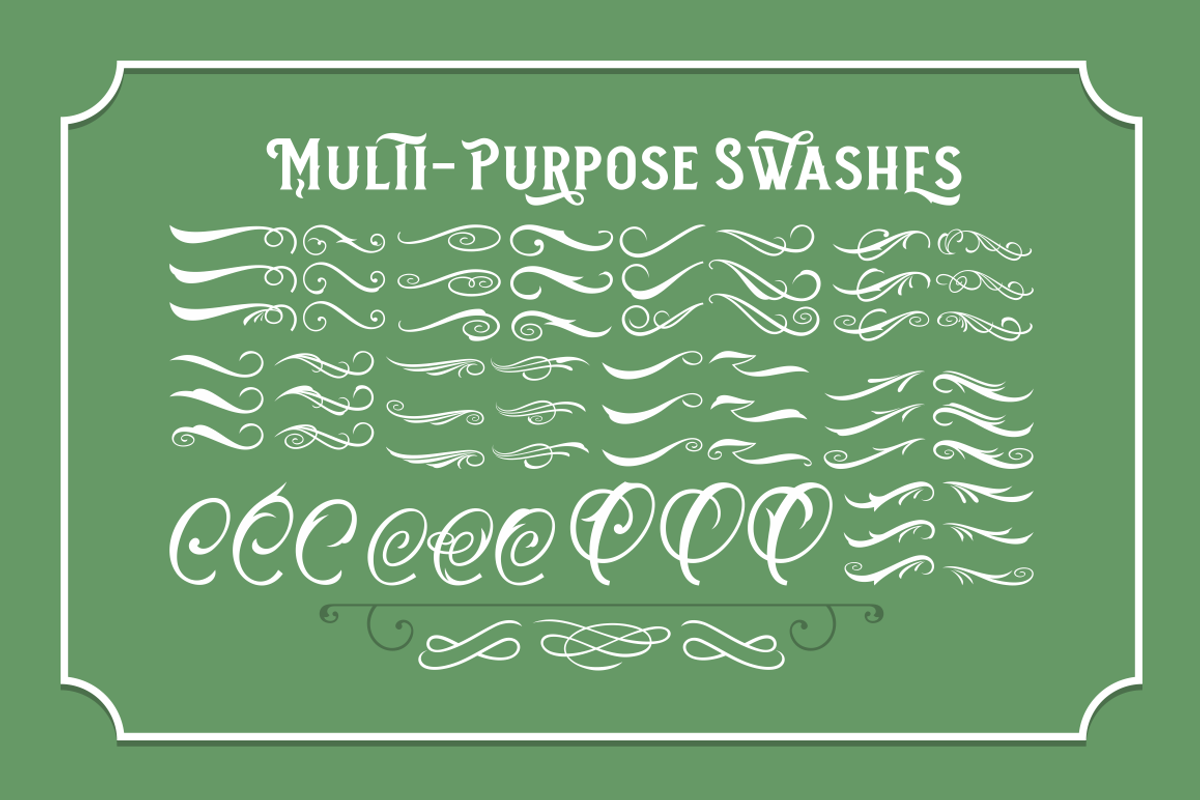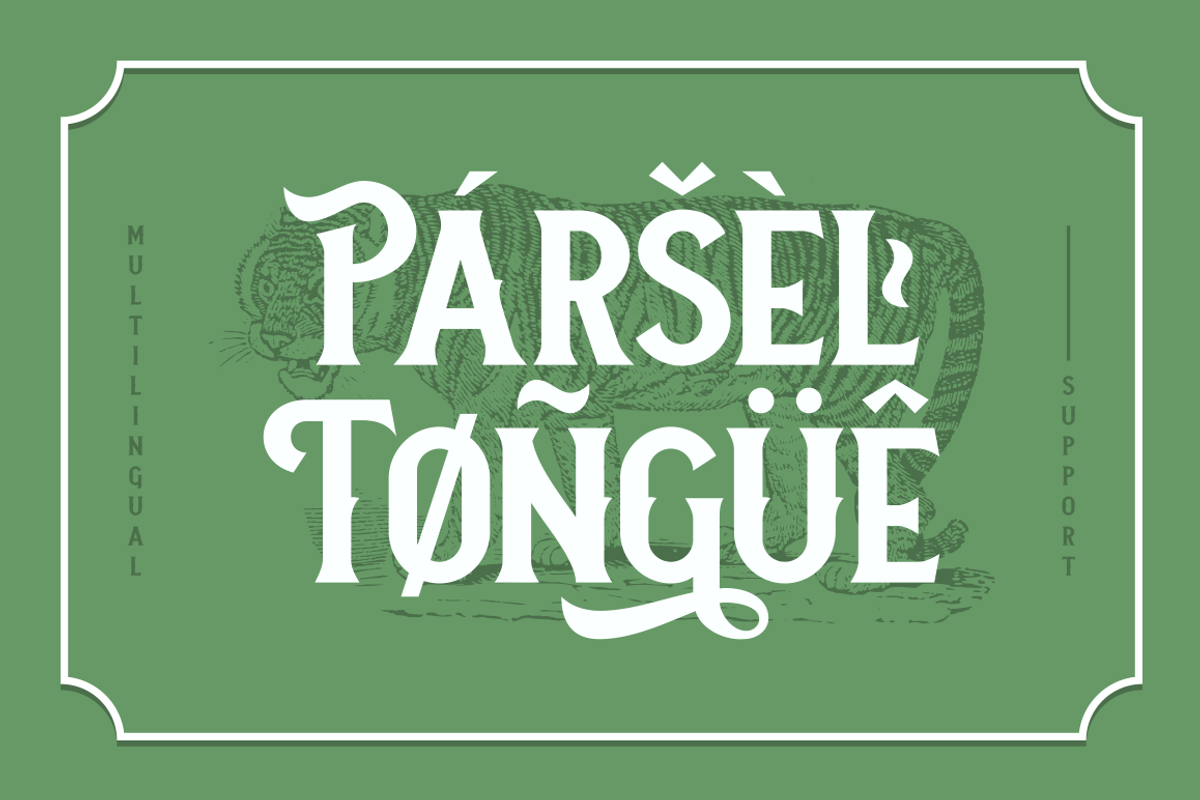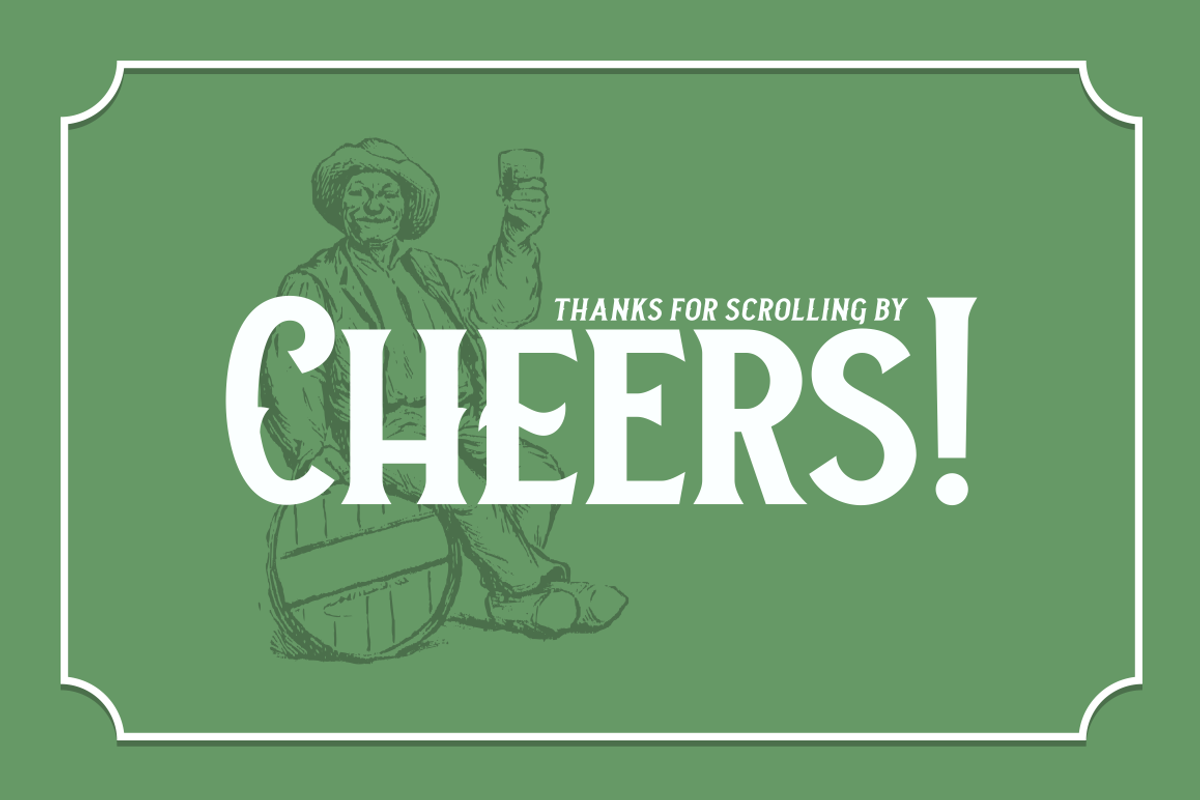
Neue Stanley
Hello, we're back with another old but new font; Neue Stanley, all-caps vintage serif with strong, clean, and sharp figures. Inspired by the classic letters that were used in the old advertisements (posters, labels, etc) Mouse-crafted with high attention to the details, satisfaction guaranteed! Whether you're working on modern or classic themed designs, this font is a must have on your designing arsenal.
- Standard characters, numerals, and punctuations (OpenType Standard encoding),
- Multilingual character supports (Afrikaans, Albanian, Catalan, Croatian, Czech, Danish, Dutch, English, Estonian, Finnish, French, German, Hungarian, Icelandic, Italian, Lithuanian, Maltese, Norwegian, Polish, Portuguese, Slovenian, Spanish, Swedish, Turkish, Zulu),
- OpenType features such as alternate characters, stylistic sets,swashes, ligatures, etc,
- Two styles: Regular, and Italic,